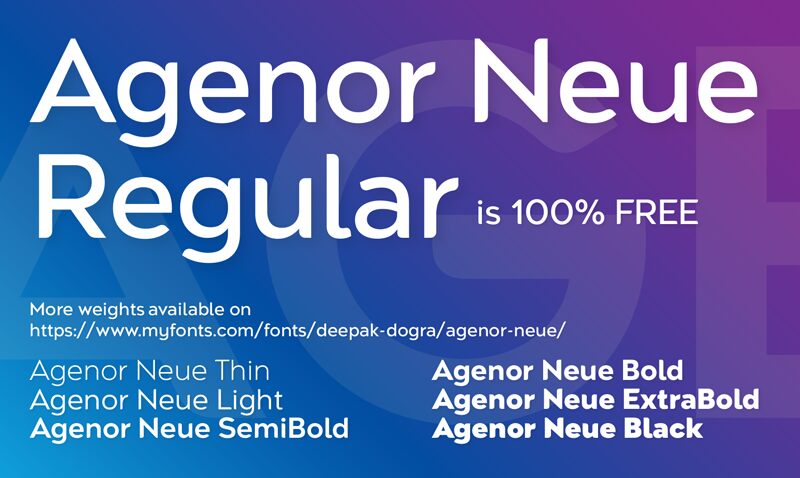
Agenor Neue Regular
Agenor Neue is a stunning sans-serif font that was crafted by the incredibly talented Deepak Dogra. Its clean and modern lines make it perfect for a multitude of projects, such as website design or branding. The semi-bold font weight adds emphasis without being overpowering, while the medium width makes it readable and easy on the eyes. This versatile typeface would be ideal for fashion or beauty campaigns, as well as business reports or presentations. With Agenor Neue, your message will be conveyed with elegance and sophistication. Try this font today to give your project that extra edge!